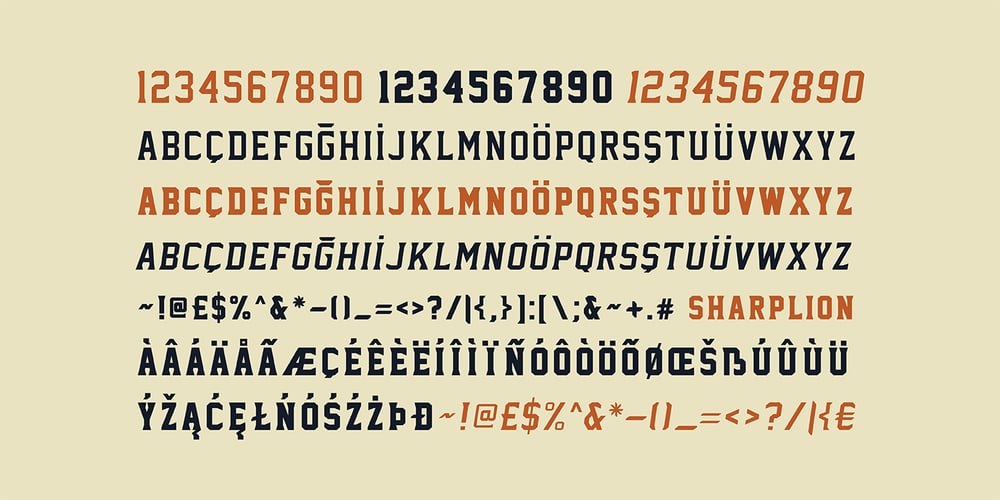
Sharplion
Sharplion font
Sharplion Font Family was designed by Zeki Michael Keskin and published by Zeki Michael. Sharplion contains 3 styles and family package options. Sharplion is a distinctive typeface family crafted by Zeki Michael Keskin. This clean yet striking display typeface balances simplicity with a bold personality, designed to optimize space while creating compelling contrast on both printed materials and digital screens.Available in two weights with a matching slanted style, Sharplion evokes a neo-vintage industrial aesthetic, perfect for titles, hierarchical subheadings, logotypes, and concise copywriting. It’s an ideal choice for brands seeking an artisan, hand-crafted, and small-batch visual identity.The origins of Sharplion trace back to 2018 when Zeki Michael designed its initial four letters as a logotype for Depo Coffee Roasting’s branding project. By early 2019, Zeki expanded the design to include a full set of letters, numbers, and glyphs. The complete Sharplion type system includes Regular, Black, and Slanted styles, offering a versatile and sharp solution for both digital and print design needs.